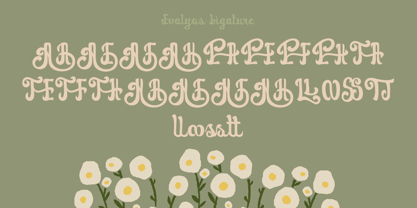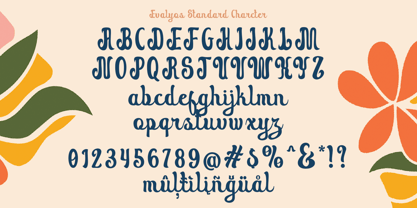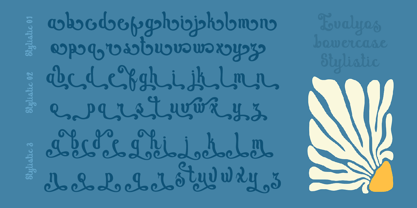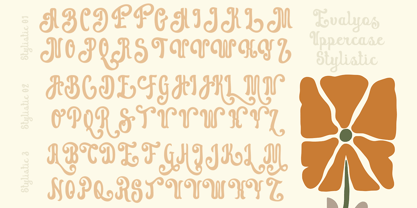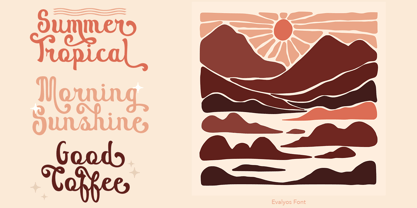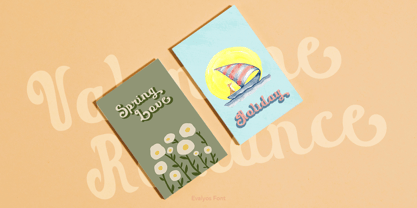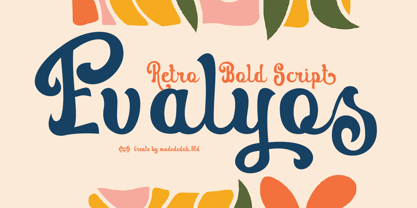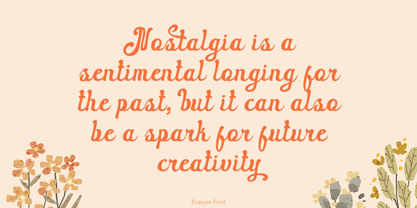
Evalyos
The Evalyos Font Family was designed by madededuk and published by madeDeduk. Evalyos contains 2 styles and family package options. More about this family
Introducing Evalyos is a Retro Script that creates a formal and elegant impression, helping text appear bold yet classy as they often use bold serifs for a classic look. This font fits perfectly in logos, contemporary posters, album, wedding invitation, fashion, branding and lifestyle driven branding. Whether you’re creating digital content or printed materials.